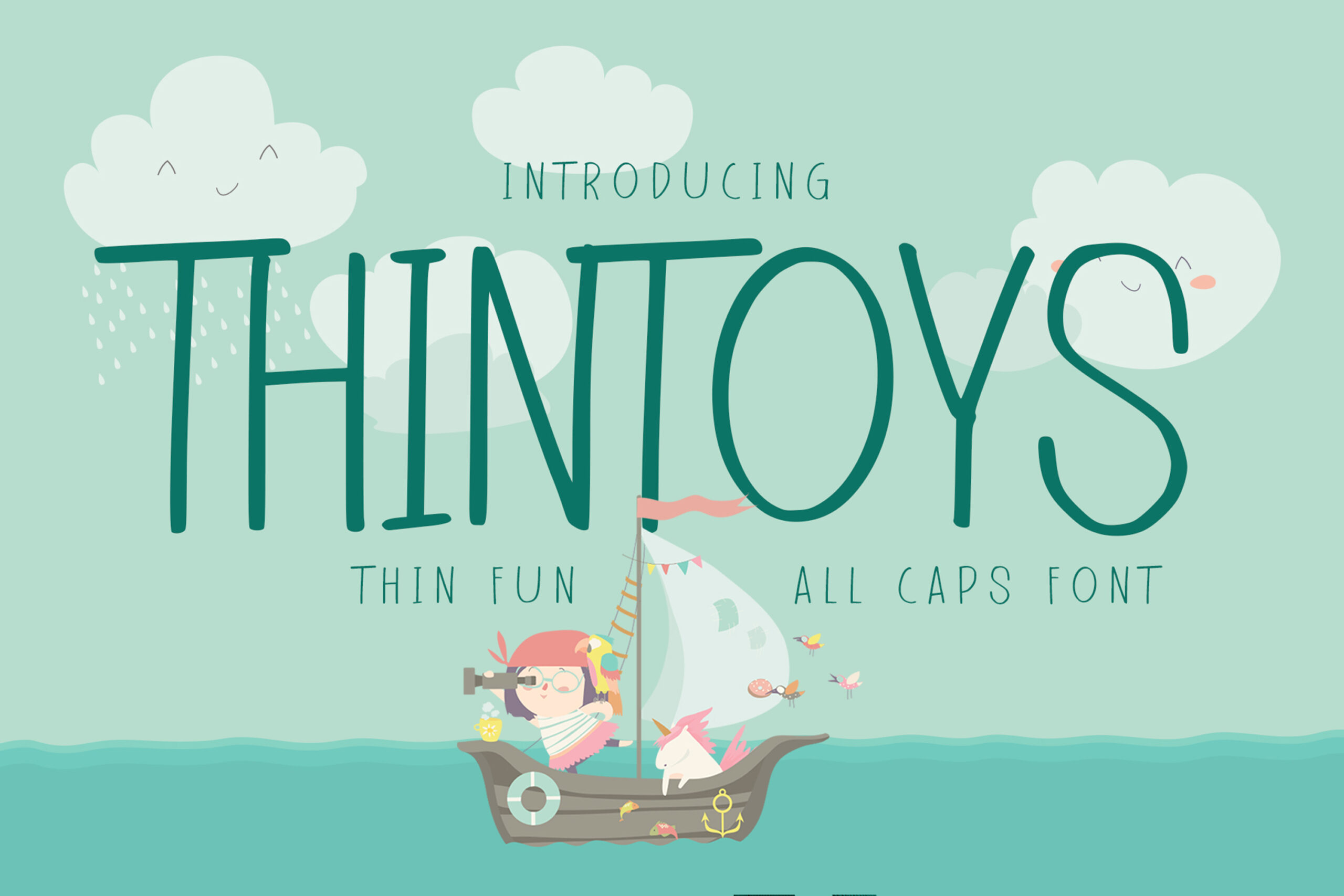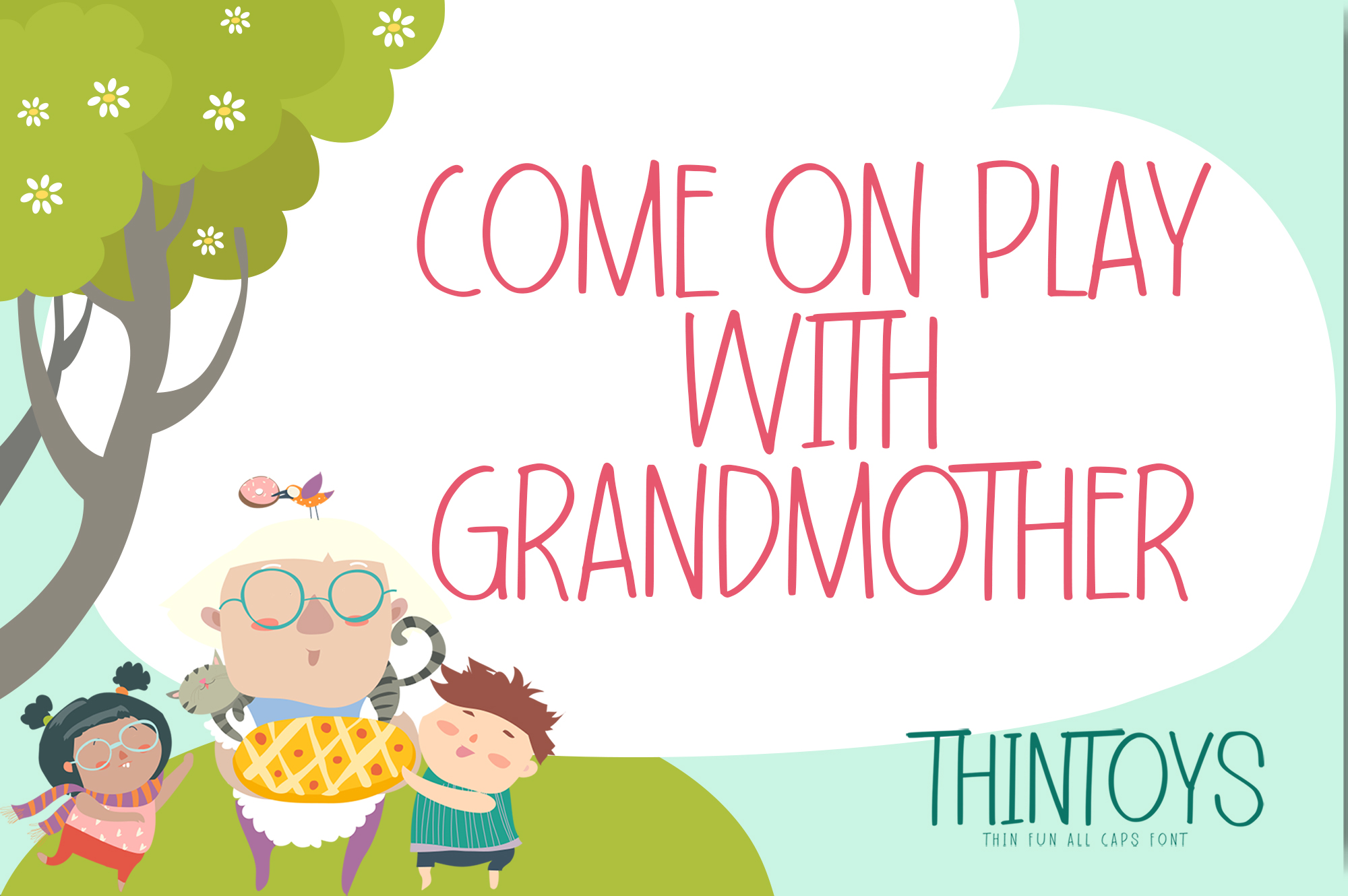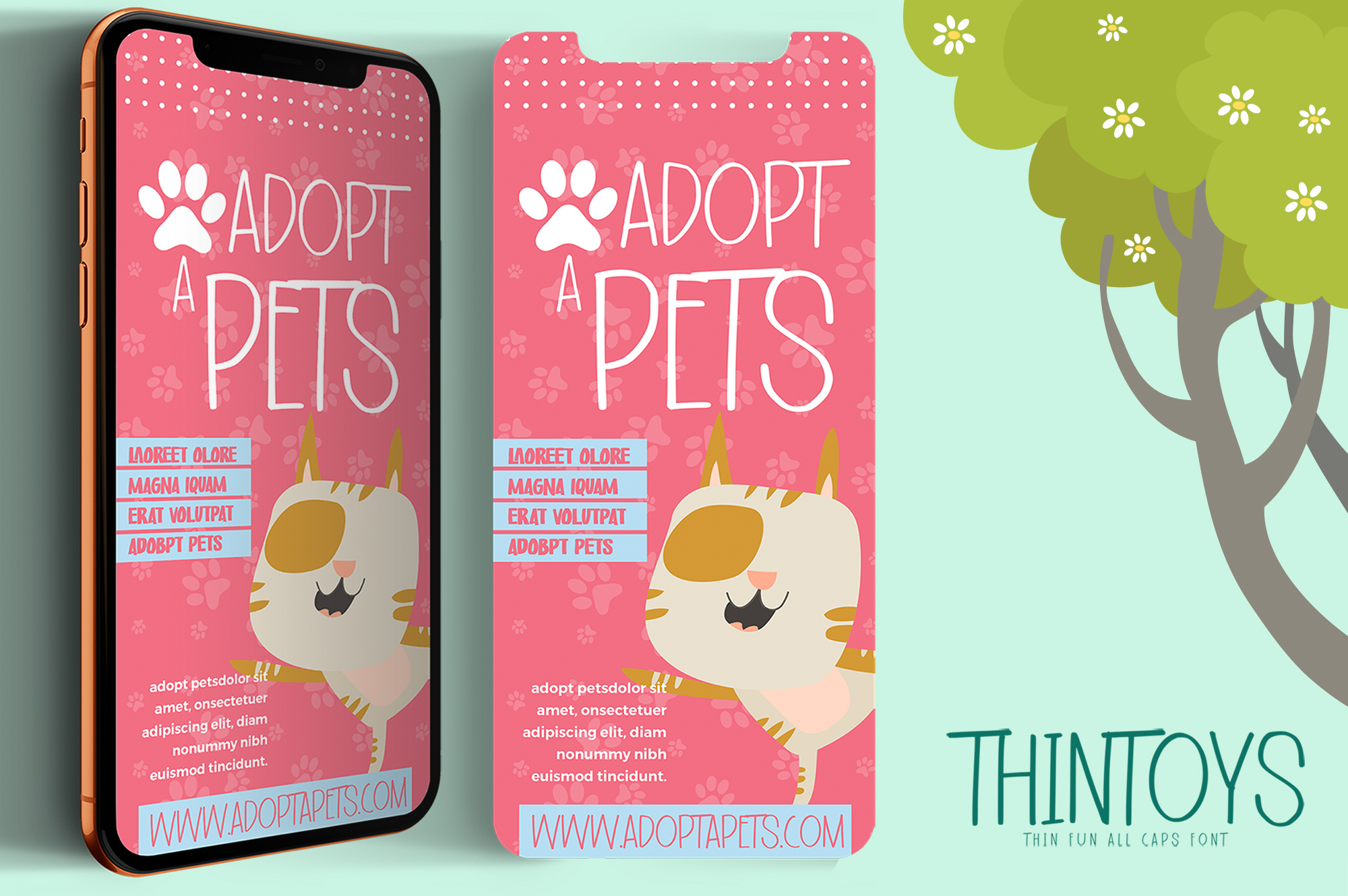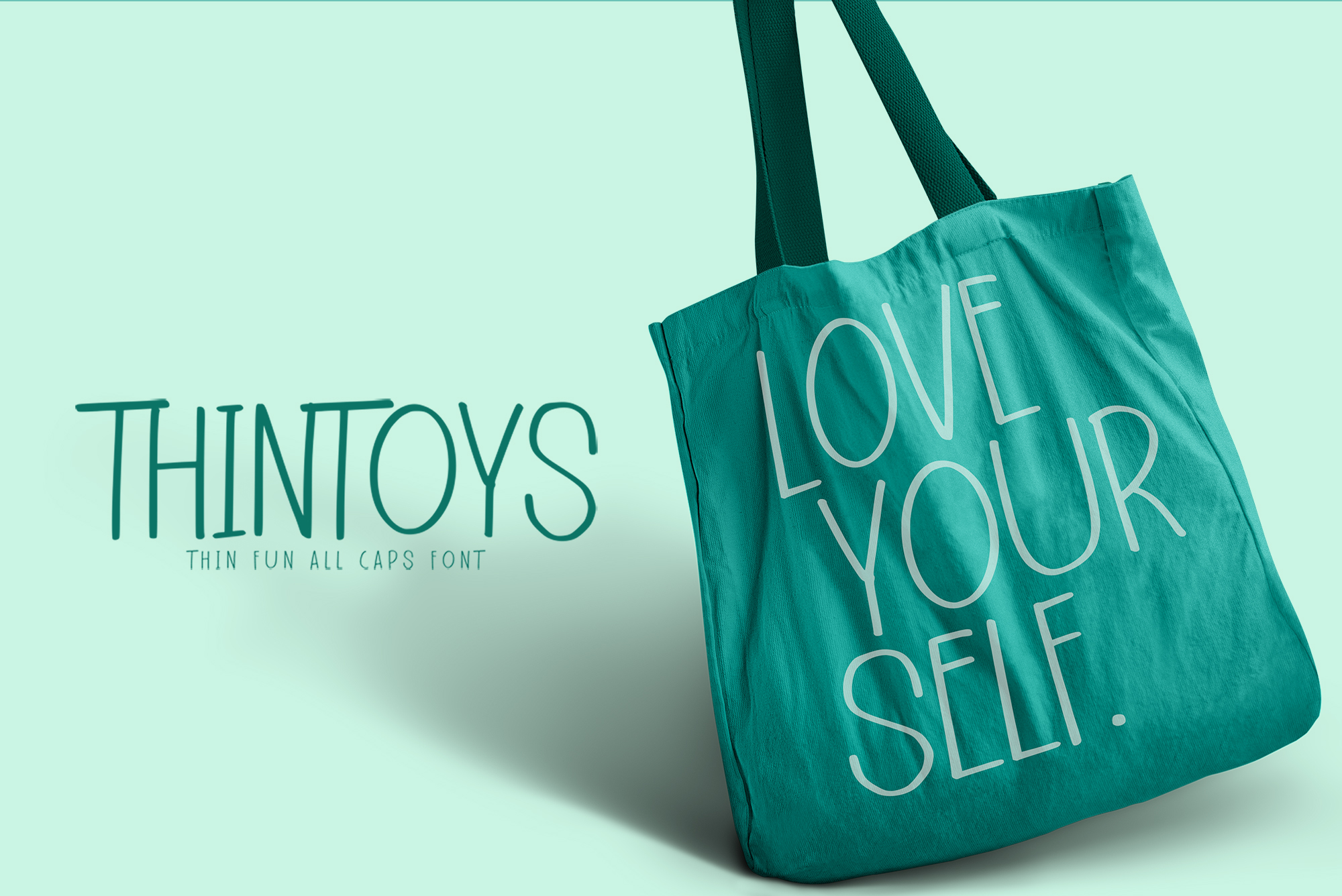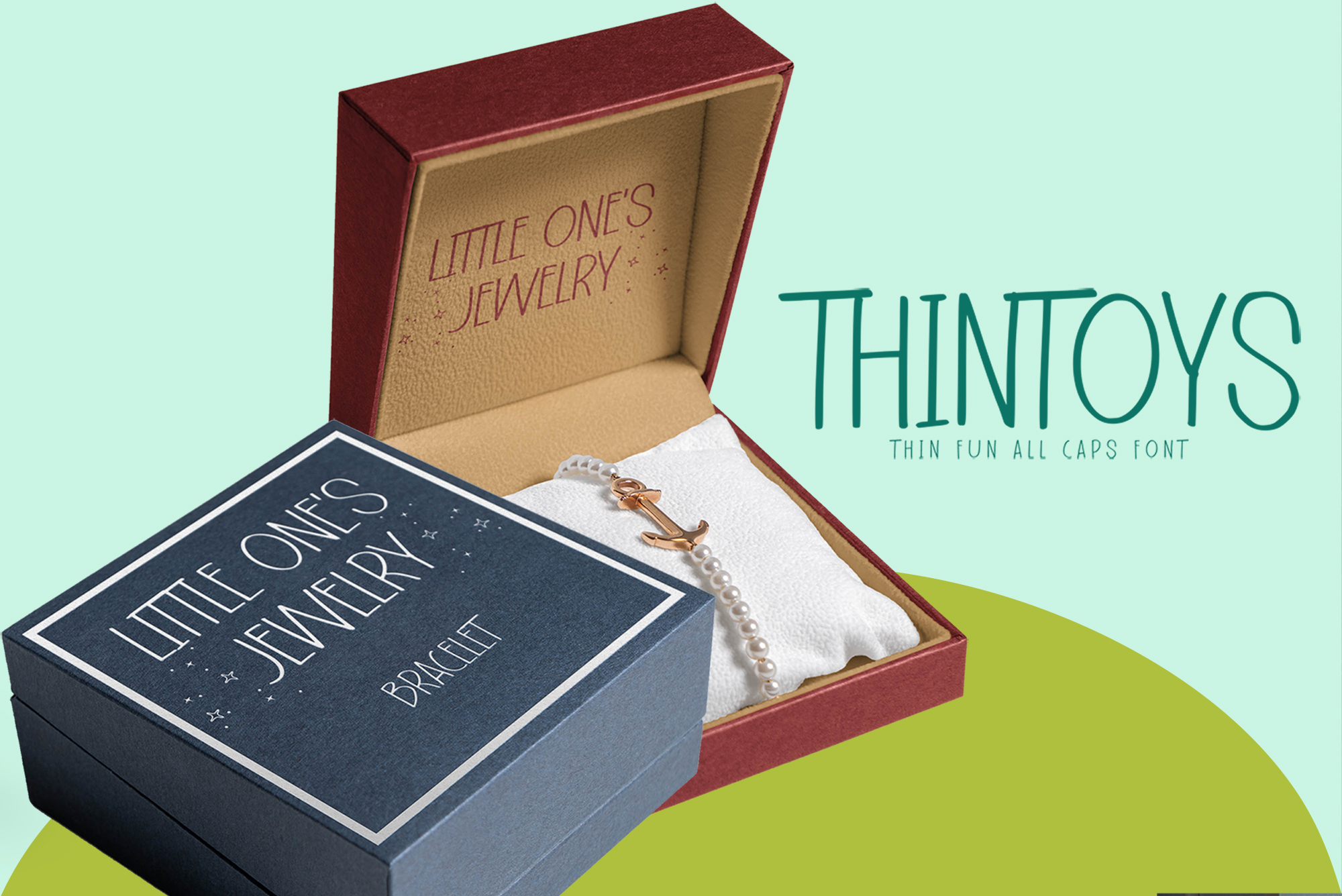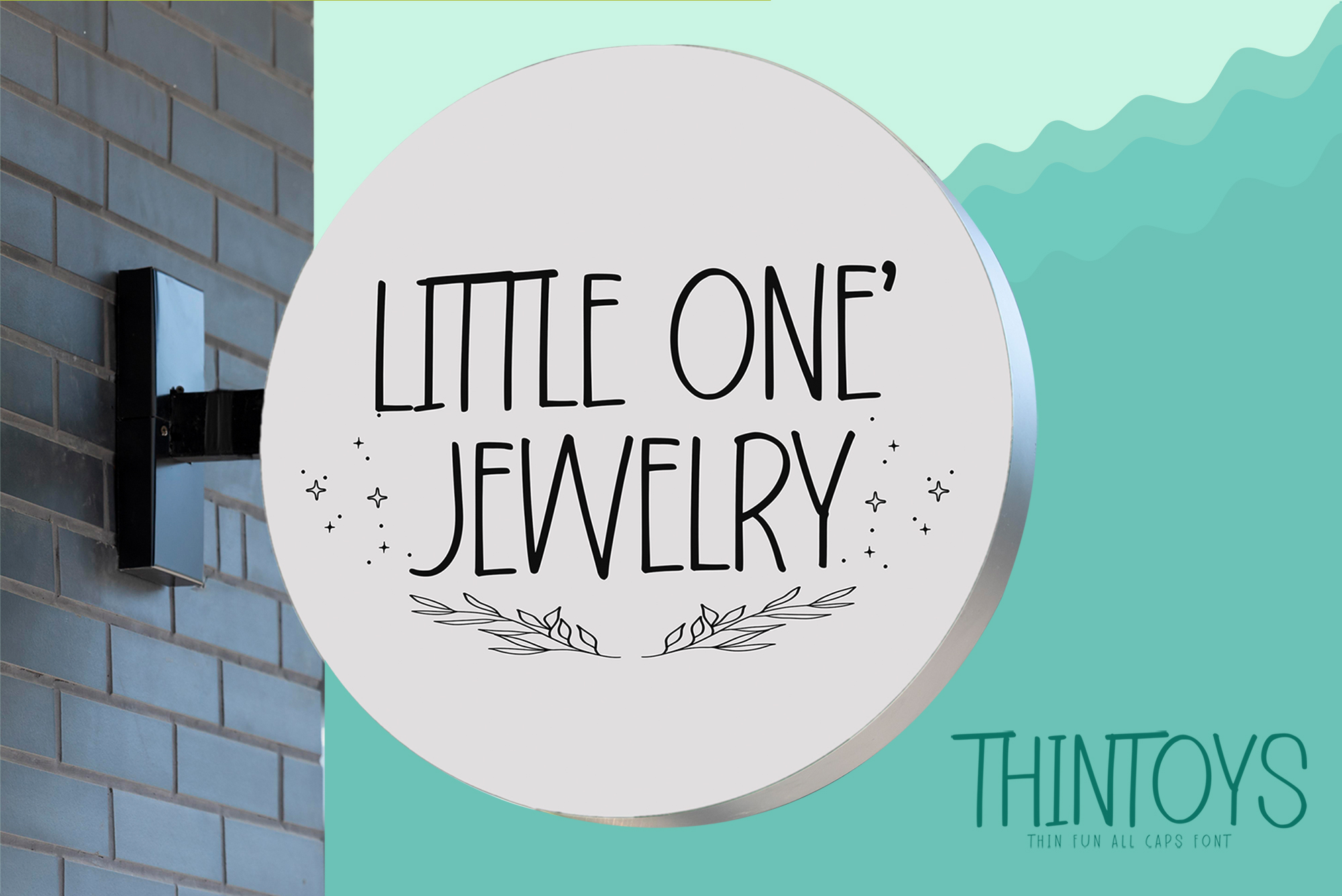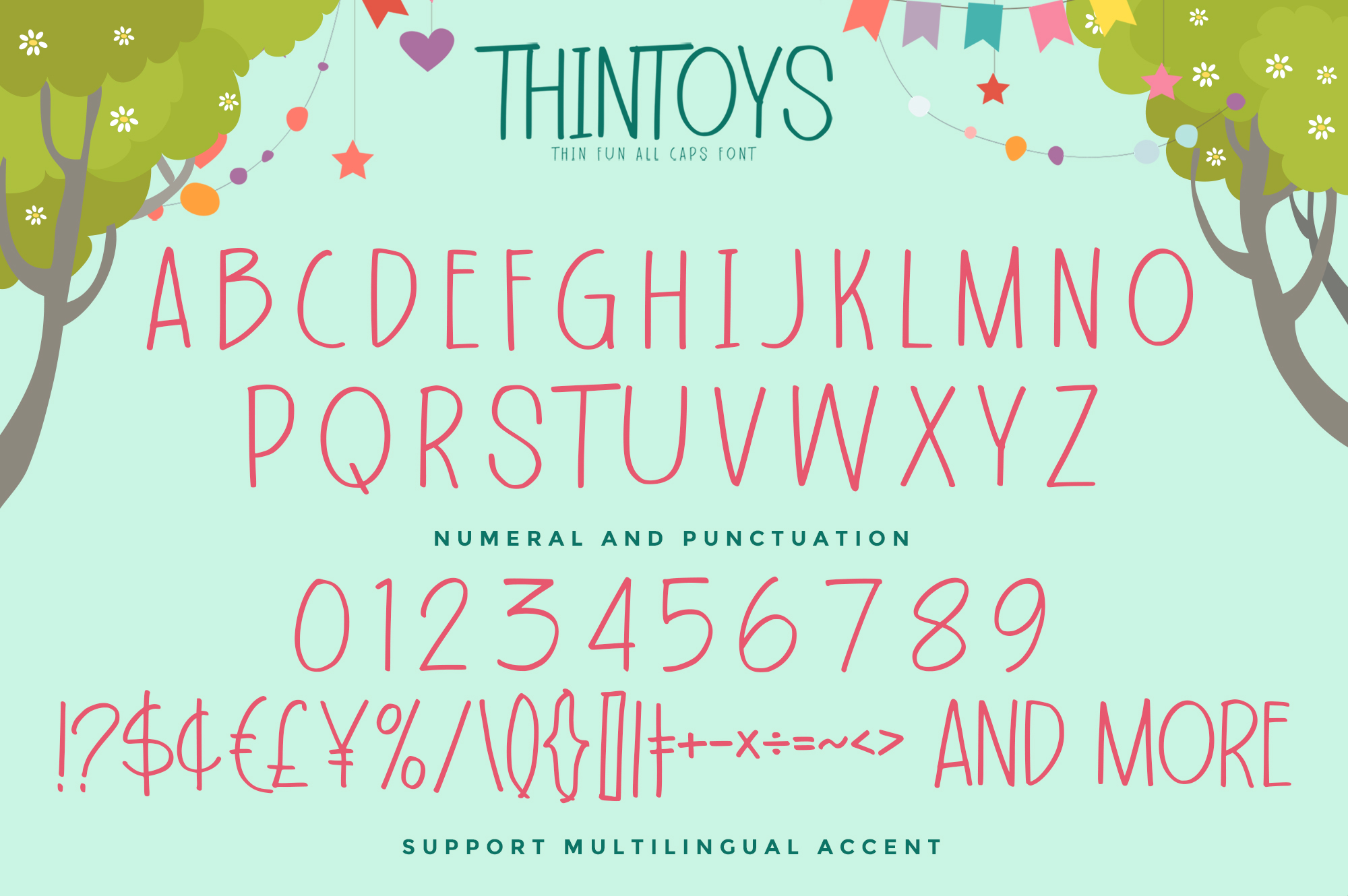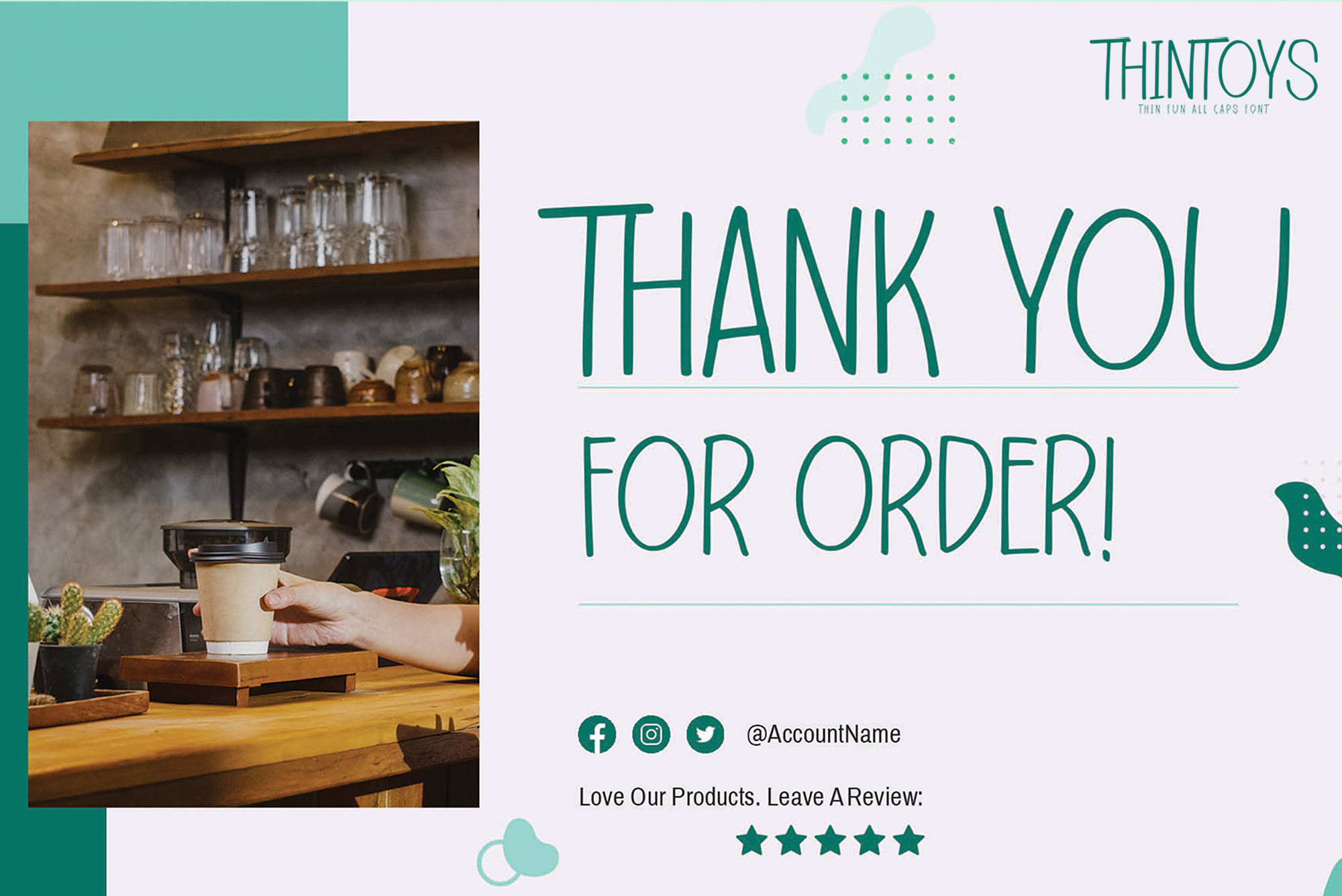
Thintoys – Fun All Caps Font ,unique style and cartoon movement that is written casually and quickly.
The best for poster,project , designs look modern, unique and fun. It’s perfect for labels, quotes, posters, DIY projects, branding, packaging, greeting cards, websites, photography overlays, signs, scrapbooking, tags and so much more! cartoon style with a fun theme very good for graffity poster, flyer, childrenbook, cartoon, comic etc. That is why Thintoys has a cute , and unique characteristic more natural look.